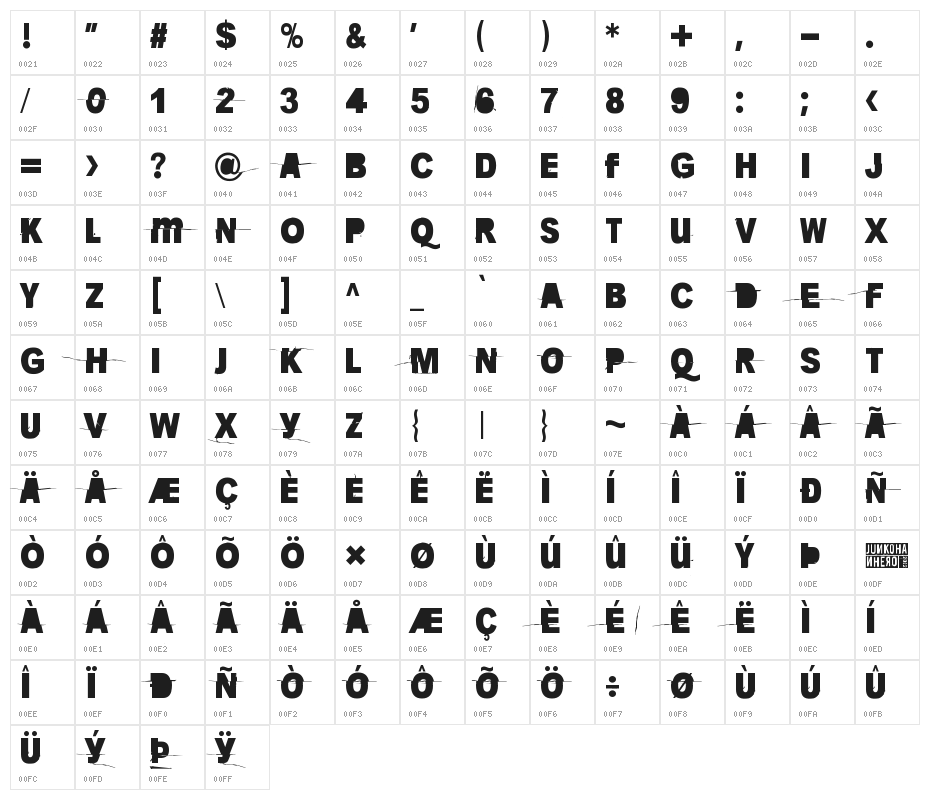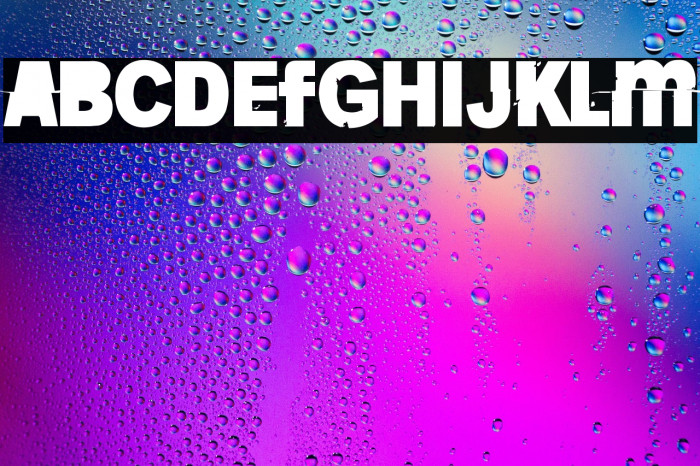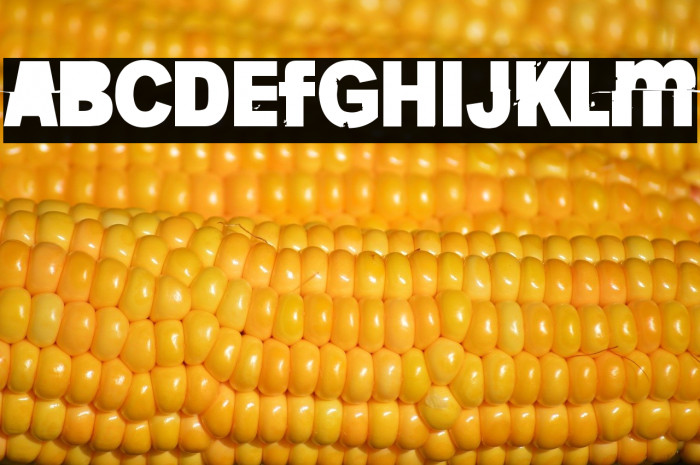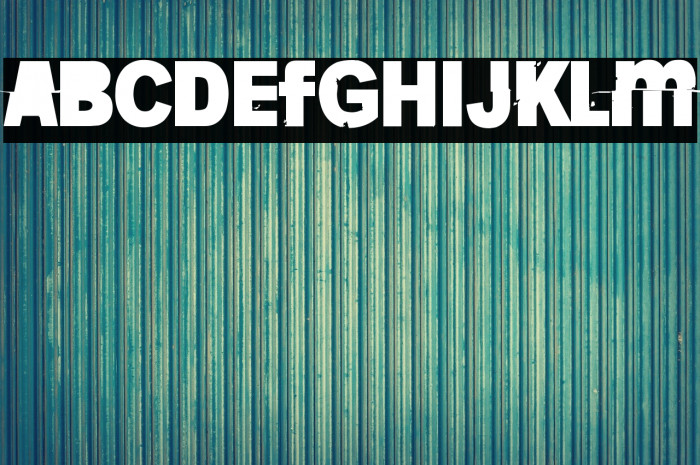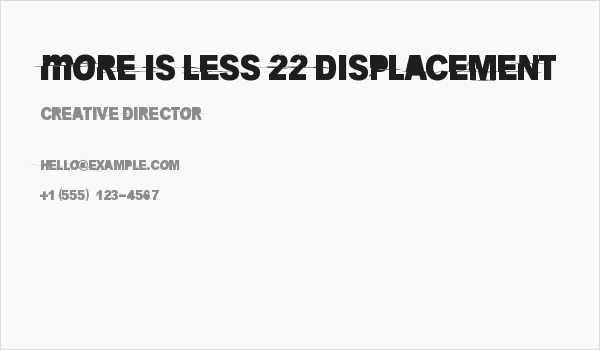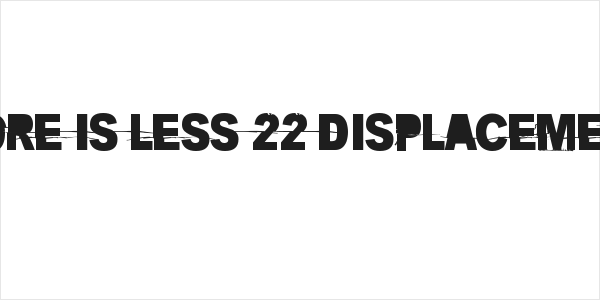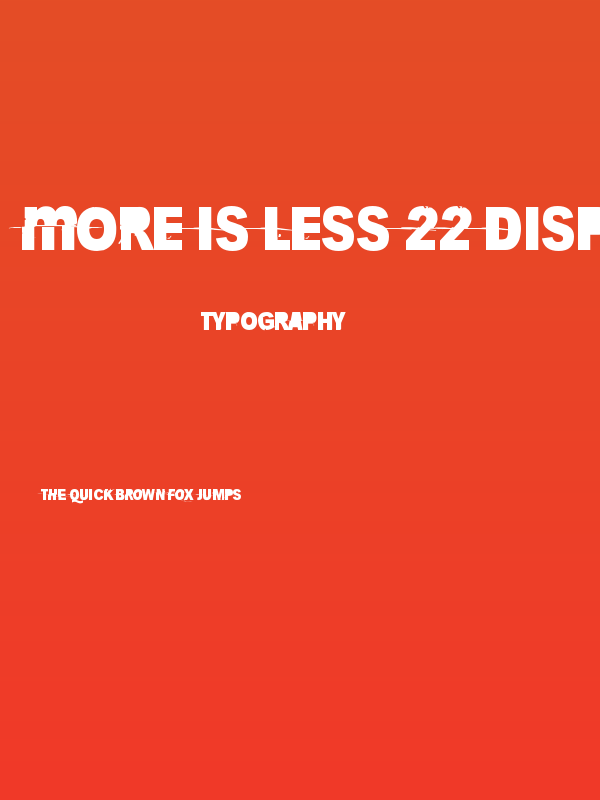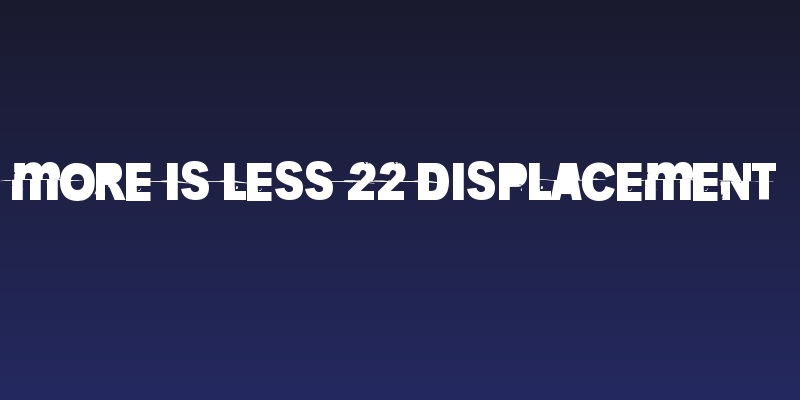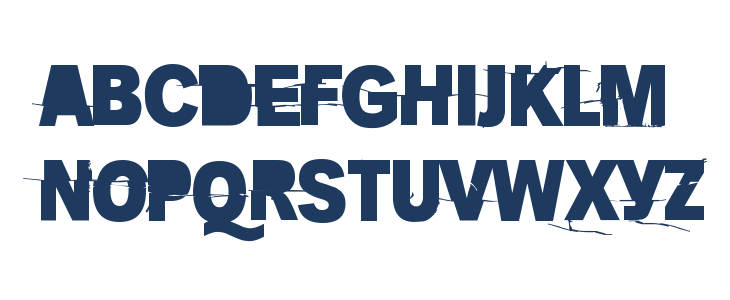
More is less 22 Displacement Font
More is less 22 Displacement Description
This font features a bold and striking design with a distressed, glitch-like appearance. The characters are heavily stylized, with portions of each letter appearing to be displaced or fragmented, creating a sense of movement and chaos. The uppercase and lowercase letters maintain a consistent height, while the numbers and special characters follow the same disruptive pattern. This font's unique style makes it stand out, offering a modern and edgy aesthetic that is both eye-catching and unconventional.
| Proposed Projects | Ideal for projects that require a modern, edgy look such as album covers, posters, digital art, and branding for tech or music industries. |